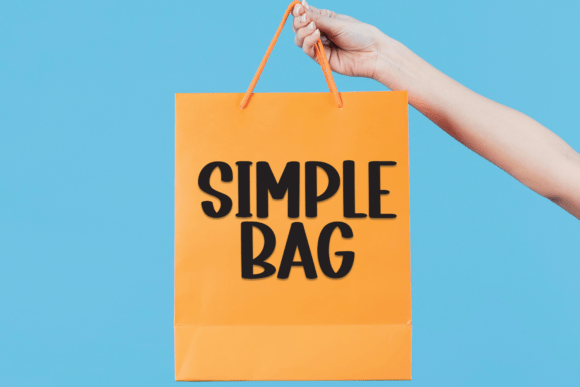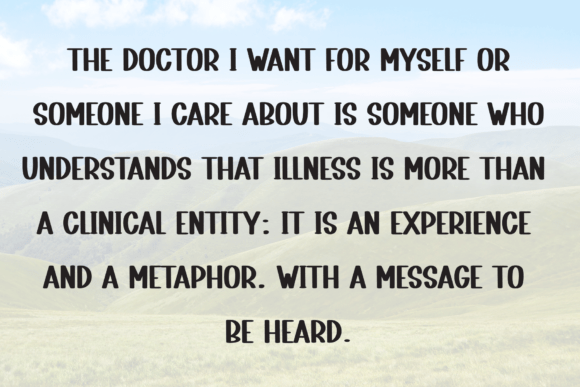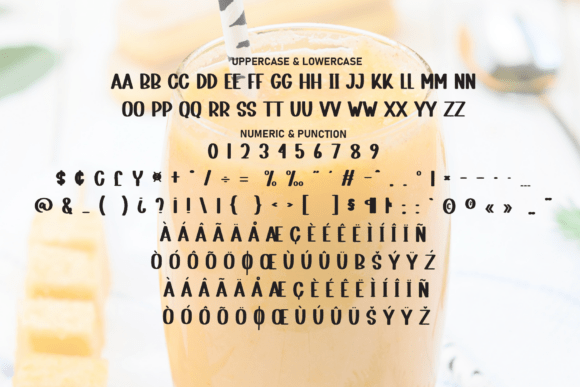
Introduction to Mango Smoothies Font
Mango Smoothies is a casual and neat display font that radiates a fresh, friendly vibe.
With clean lines and a relaxed structure, itโs perfect for packaging, posters, and social media graphics The approachable design adds charm and clarity to projects while maintaining a polished appearance.